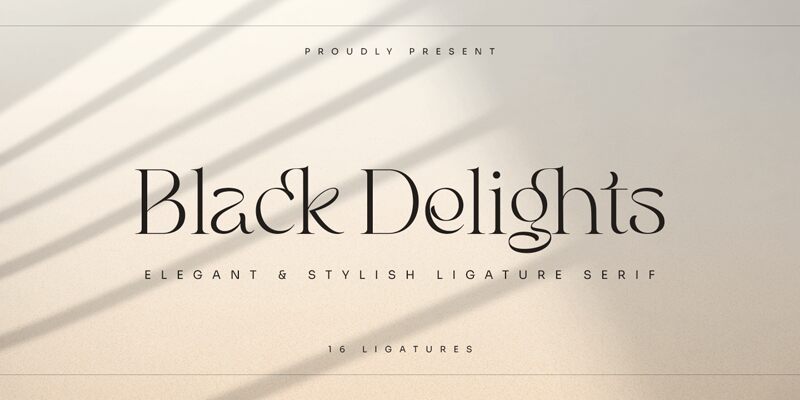
Black Delights
Black Delights by Moka Type Studio captures the essence of sophistication and elegance with its distinct serif style. Each character exudes a refined charm, with graceful curves and delicate lines that enhance its visual appeal. The font's striking balance between boldness and subtlety makes it perfect for adding a touch of class to any design project.
Whether used in luxury branding, editorial design, or high-end invitations, Black Delights stands out with its timeless aesthetic. Its unique details make it versatile for both contemporary and traditional settings, ensuring your text commands attention while maintaining an air of sophistication.